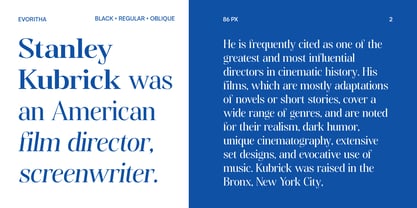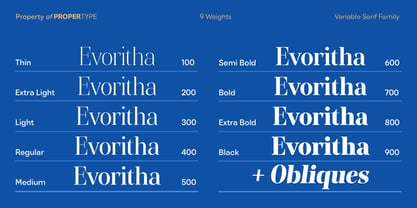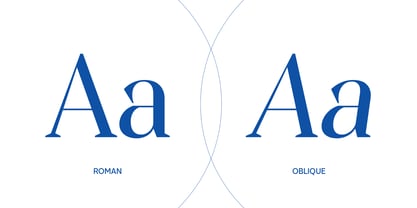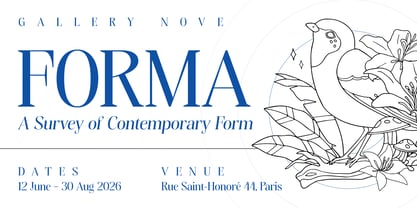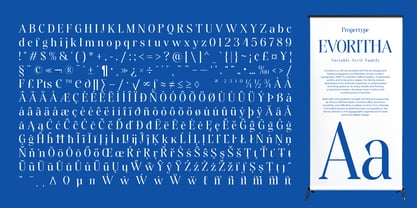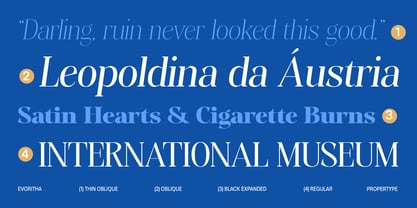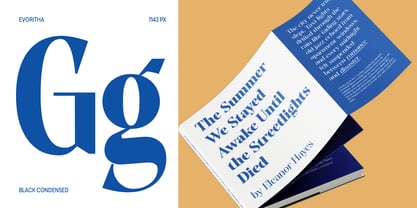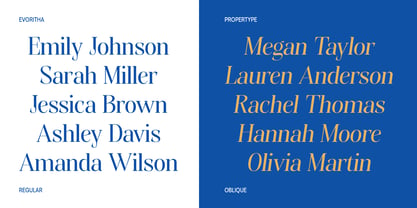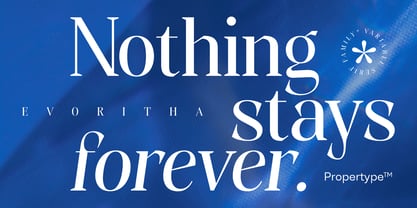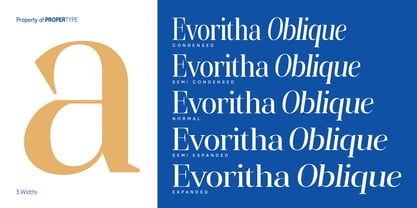
Evoritha
by Propertype
The Evoritha Font Family was designed by Nadia Auliana and published by Propertype. Evoritha contains 176 styles and family package options. More about this family
Introducing Evoritha Serif, a highly refined serif font that exudes an aura of elegance. Evoritha's uniqueness lies in the harmonious blend of geometric shapes and graceful curved elements, resulting in a font with a unique and distinctive character. Embrace the sophistication of Evoritha for all your typography needs.
Evoritha Text also comes with 90 Variable versions to make it easy for designers to explore and refine beautiful designs, revealing many visual nuances and hidden secrets.
Designers: Nadia Auliana
Foundry: Propertype